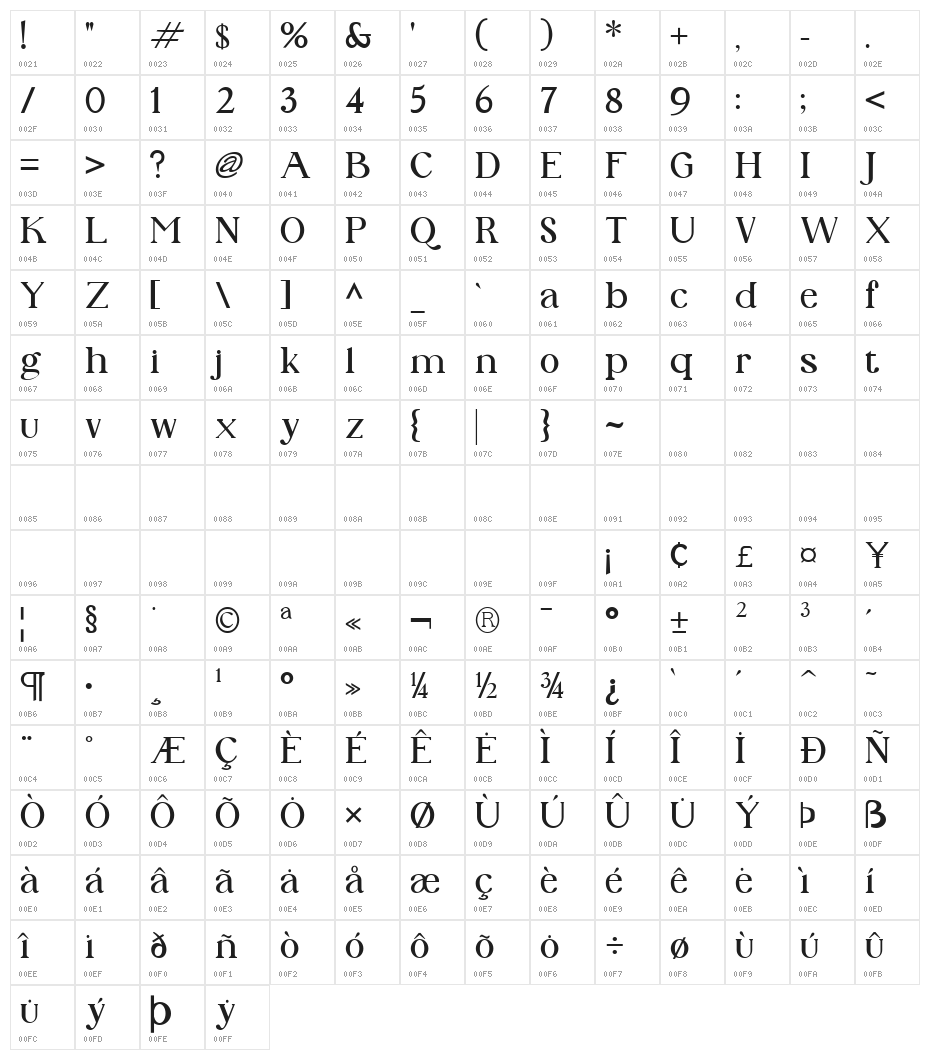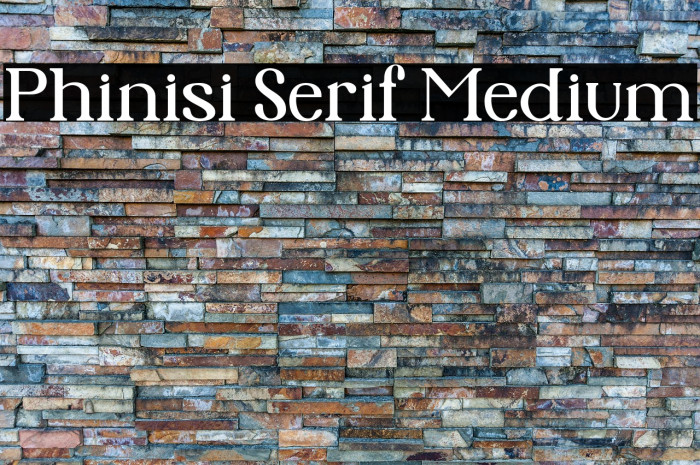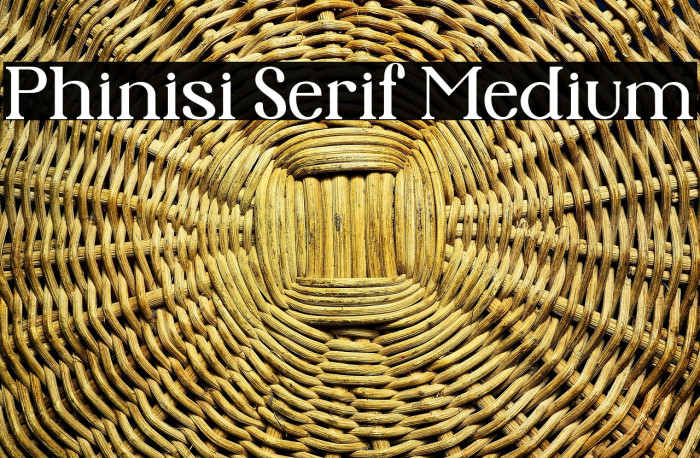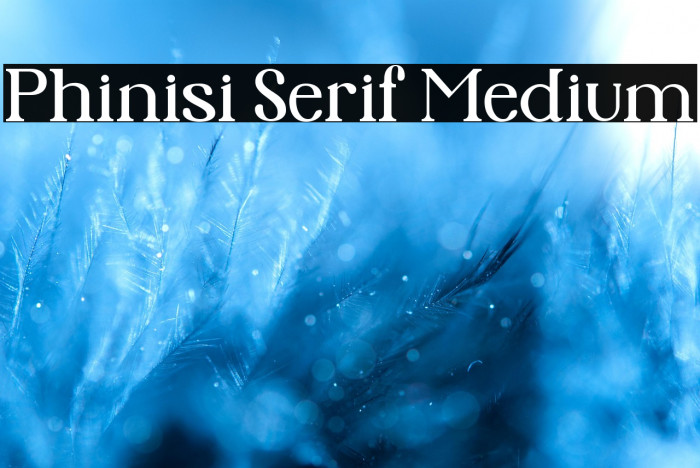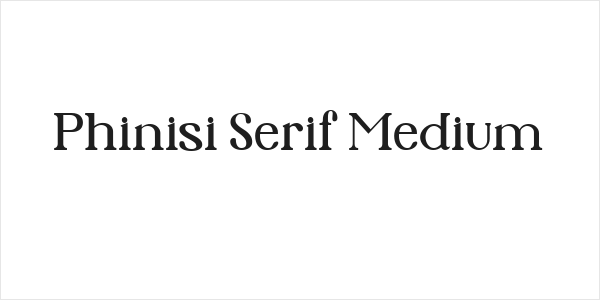
Phinisi Serif Medium Font
Phinisi Serif Medium Description
This font exhibits a classic serif style with a medium weight, providing a balanced and readable appearance. The serifs are pronounced, adding a touch of elegance and tradition to the characters. The uppercase letters are bold and commanding, while the lowercase letters maintain a consistent flow with slightly rounded edges. The numerals are clear and distinct, ensuring legibility in various contexts. Special characters are well-integrated, maintaining the overall aesthetic. The font's design is suitable for both digital and print media, offering versatility in its application.